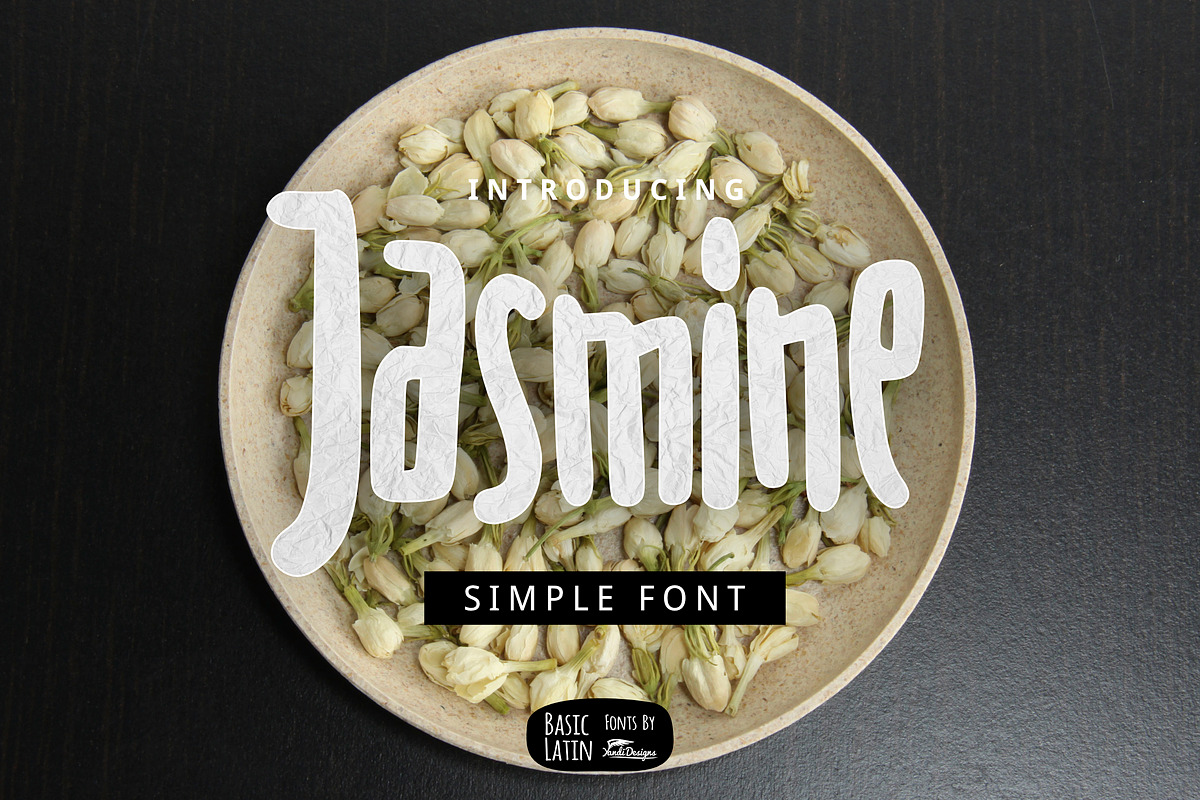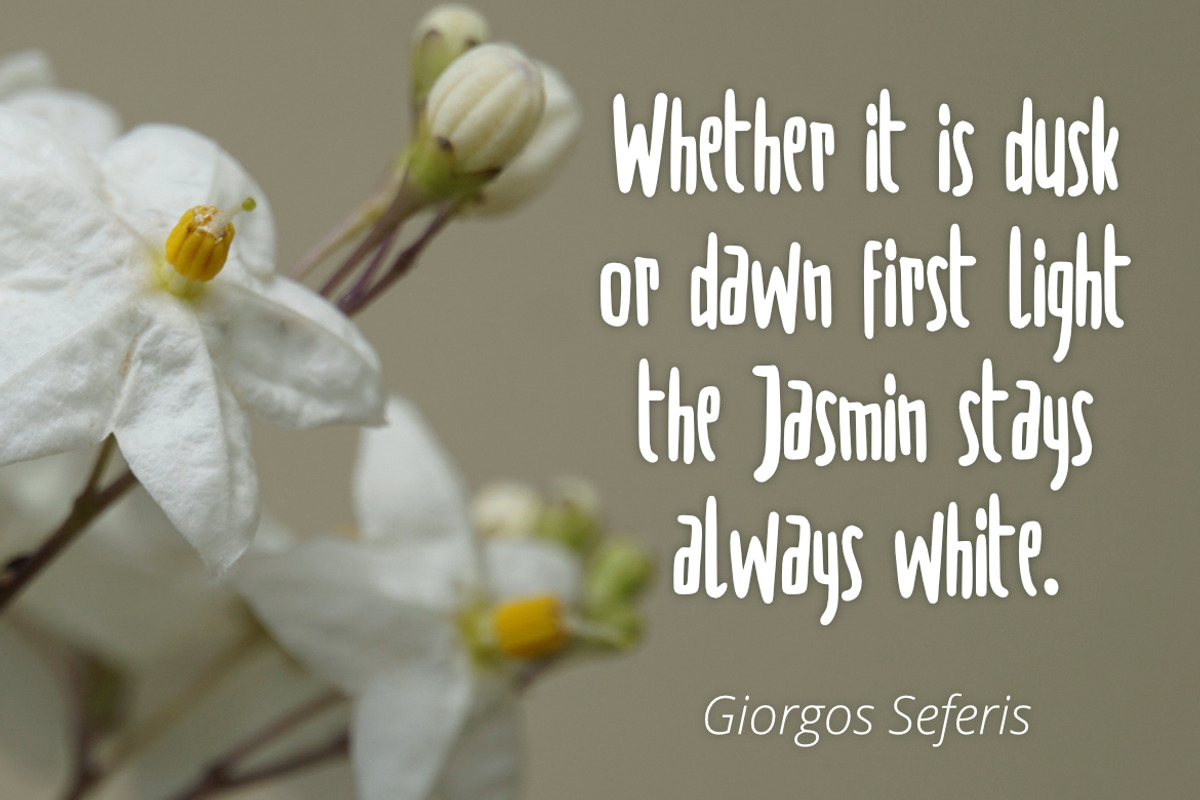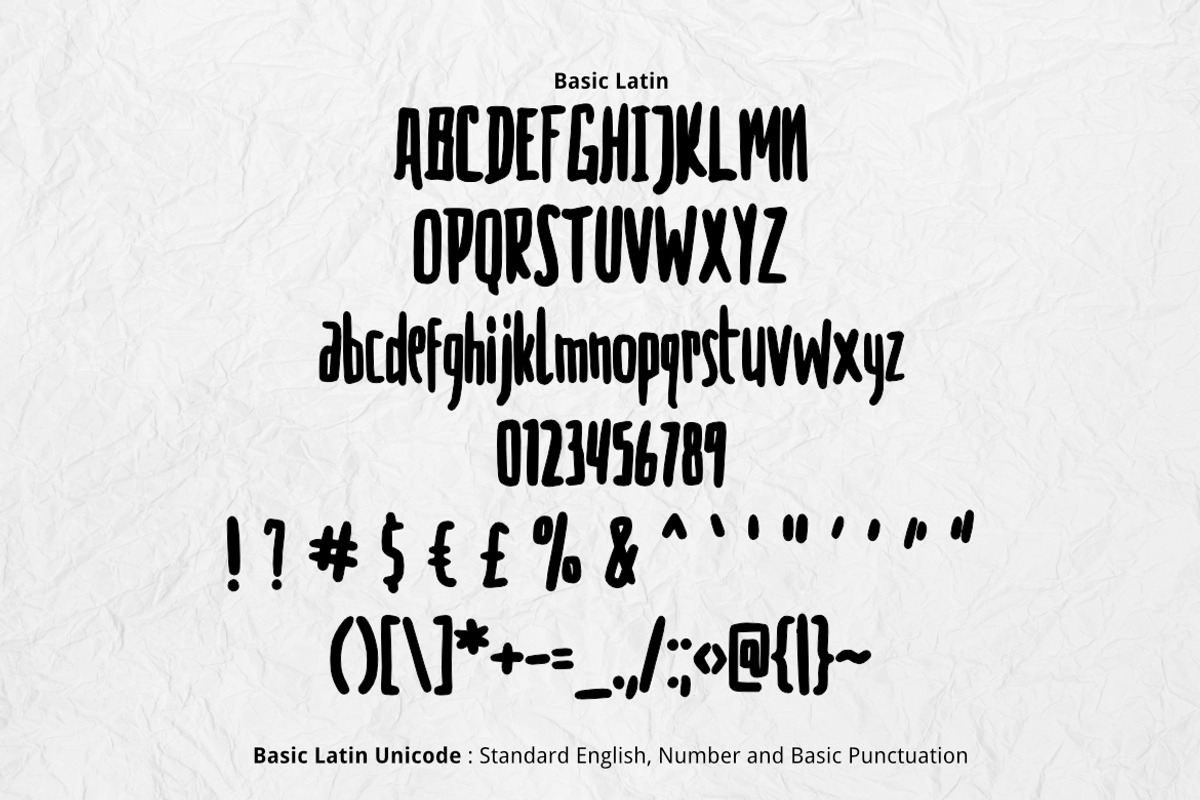
Jasmine Font
Jasmine font is simple cute multipurpose handmade font , suitable for many project children book, quotes, logo , heading , title etc.
Why Jasmine Font is worth a look
Jasmine Font by YandiDesigns fits naturally into Branding, posters, packaging, typography.